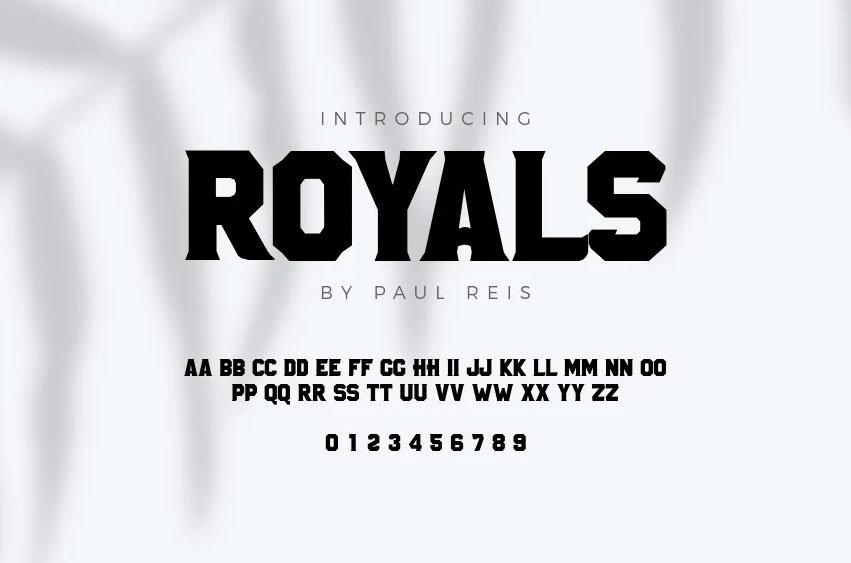
Royals Font
Royals Font family offers a fusion of traditional elegance and contemporary flair, featuring two styles and corresponding Italics with all caps letters, numbers, and symbols included. Ideal for logos, badges, labels, posters, headlines, and any vintage-inspired design projects, Royals brings a sophisticated yet trendy aesthetic to your creations.